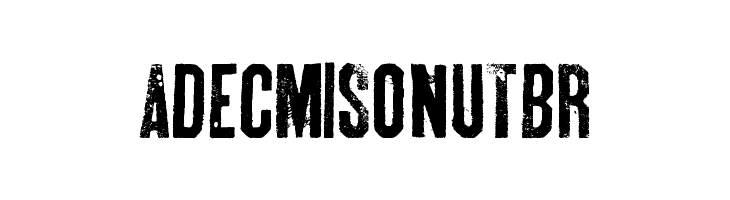
Macaroni & Cheese_PersonalUseOnly Font
- Font: Macaroni & Cheese_PersonalUseOnly
A bold, distressed font with a grunge aesthetic and irregular edges.